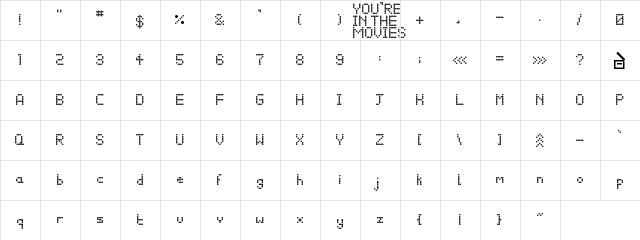
You're In The Movies (Game) Regular
Design Context for You're In The Movies (Game) Typeface
You're In The Movies (Game) is a composed and adaptable typeface that performs quietly and consistently across a wide range of design contexts.